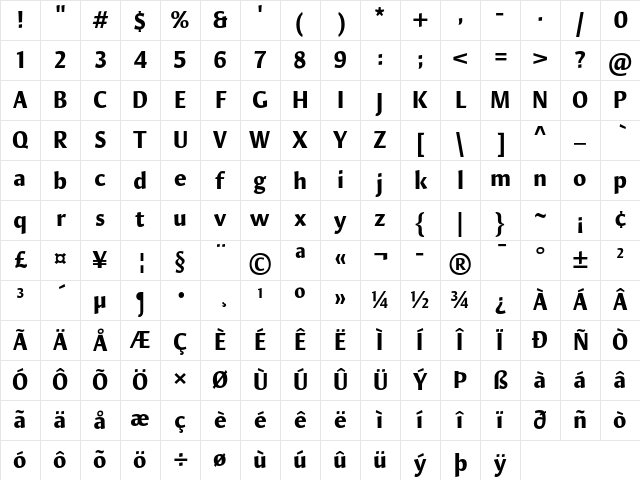
Complete Hildegard LT Std Bold glyph index. Displaying only characters natively supported by Hildegard LT Std Bold font.
Hildegard LT Std is a composed and adaptable typeface that performs quietly and consistently across a wide range of design contexts. Its bold stroke weight gives it real presence on the page.